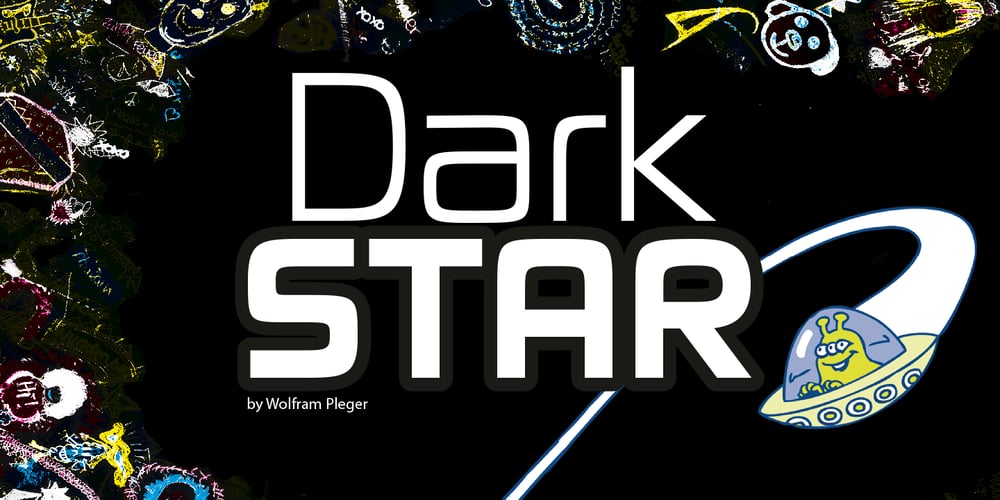
Dark Star Font Family was designed by Wolfram Pleger and published by PleasureFonts. Dark Star contains 6 styles and family package options. Dark Star is a modern, futuristic typeface with a sci-fi, high-tech look.The letter design is a geometric sans but also slightly rounded to make a more organic and natural impression. The suggested use for Dark Star is logo design, headlines in editorial design, packaging, web and print titles and game design.This futuristic typeface was designed in 2021, released by pleasurefonts and comes in 6 weights with a glyphs amount of 394.